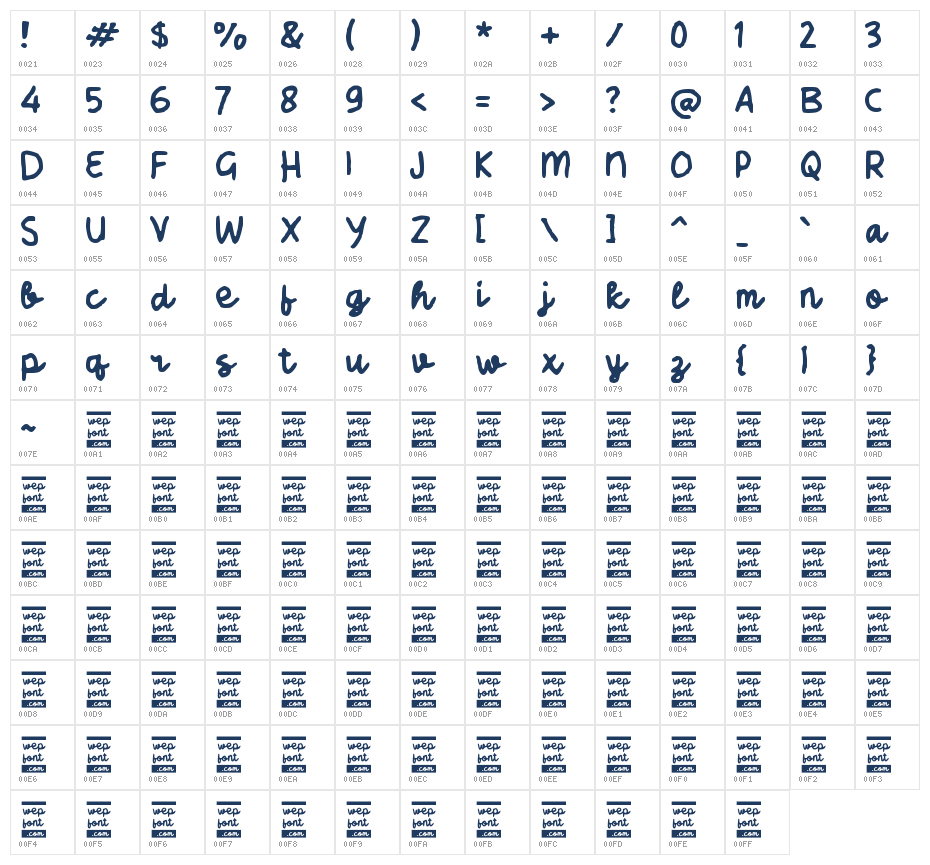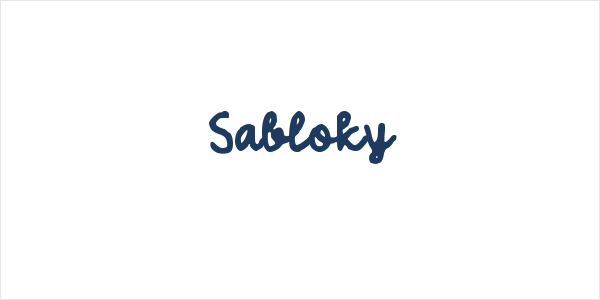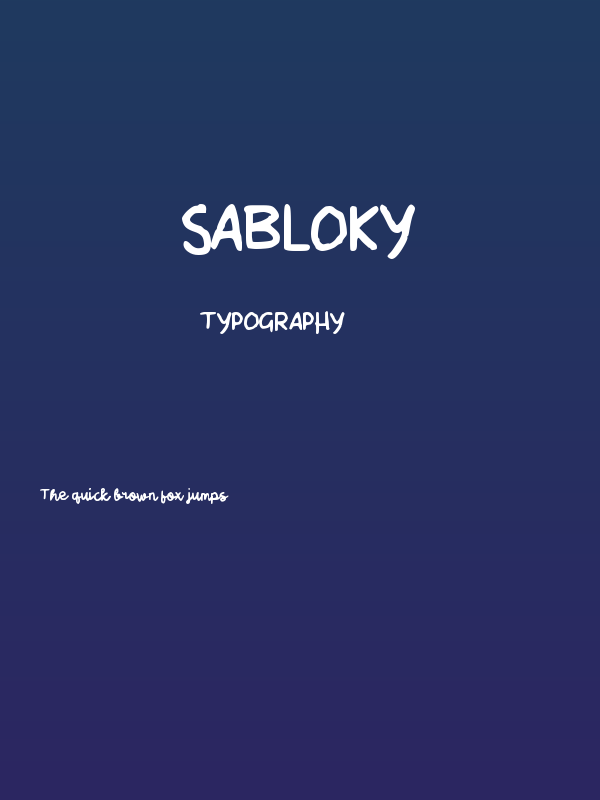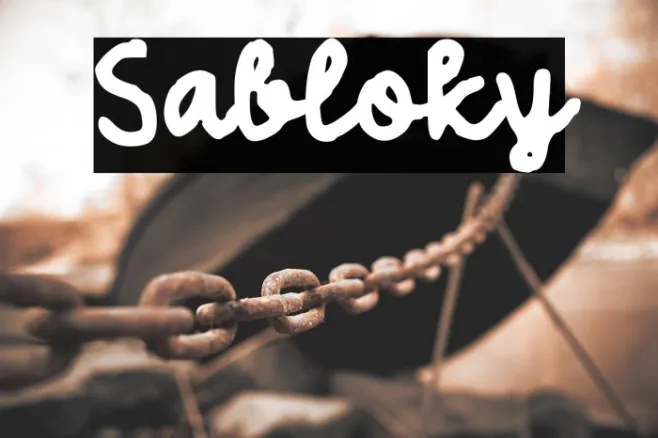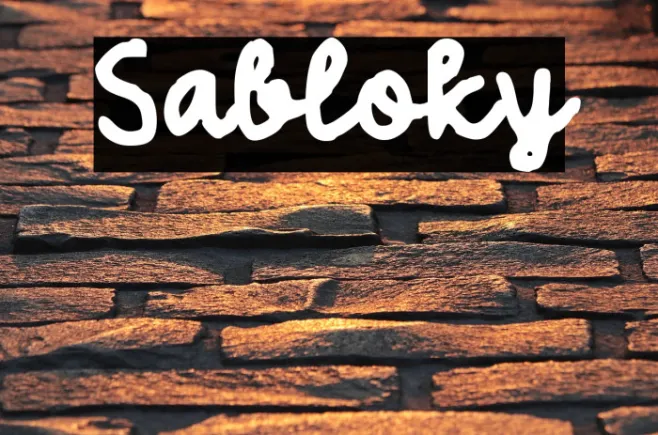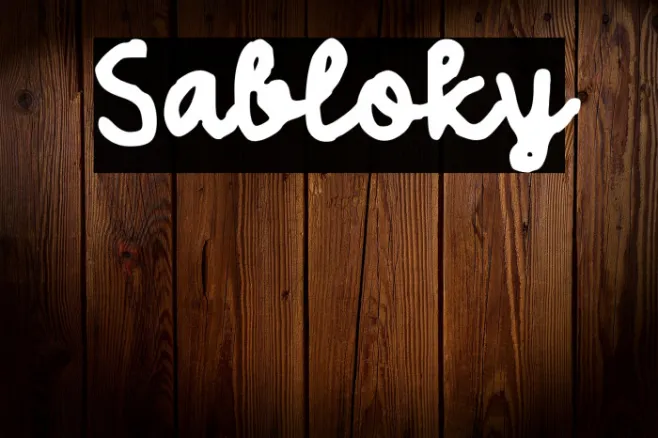
Sabloky Font
Sabloky Description
A playful, handwritten style font with a casual and informal appearance, featuring rounded edges and a slightly irregular stroke width.